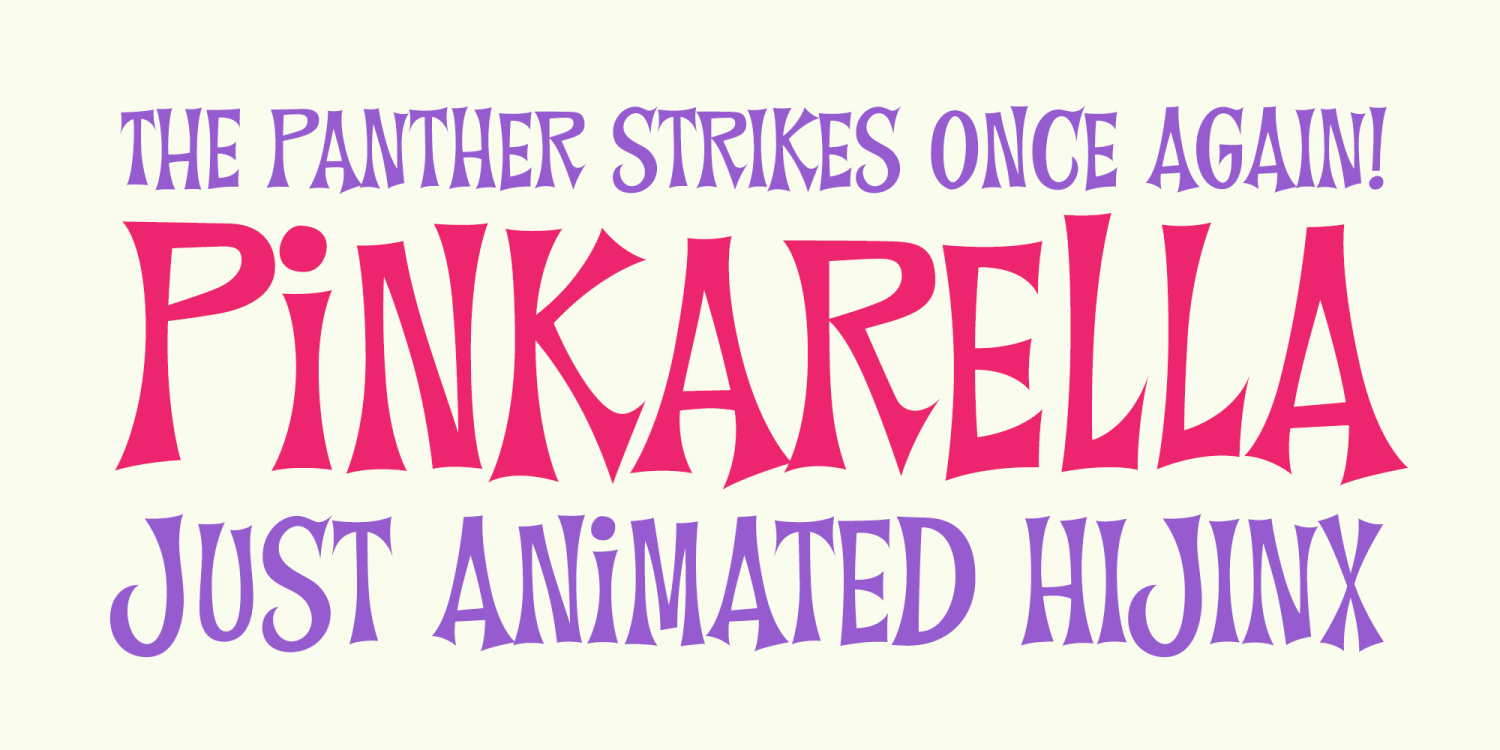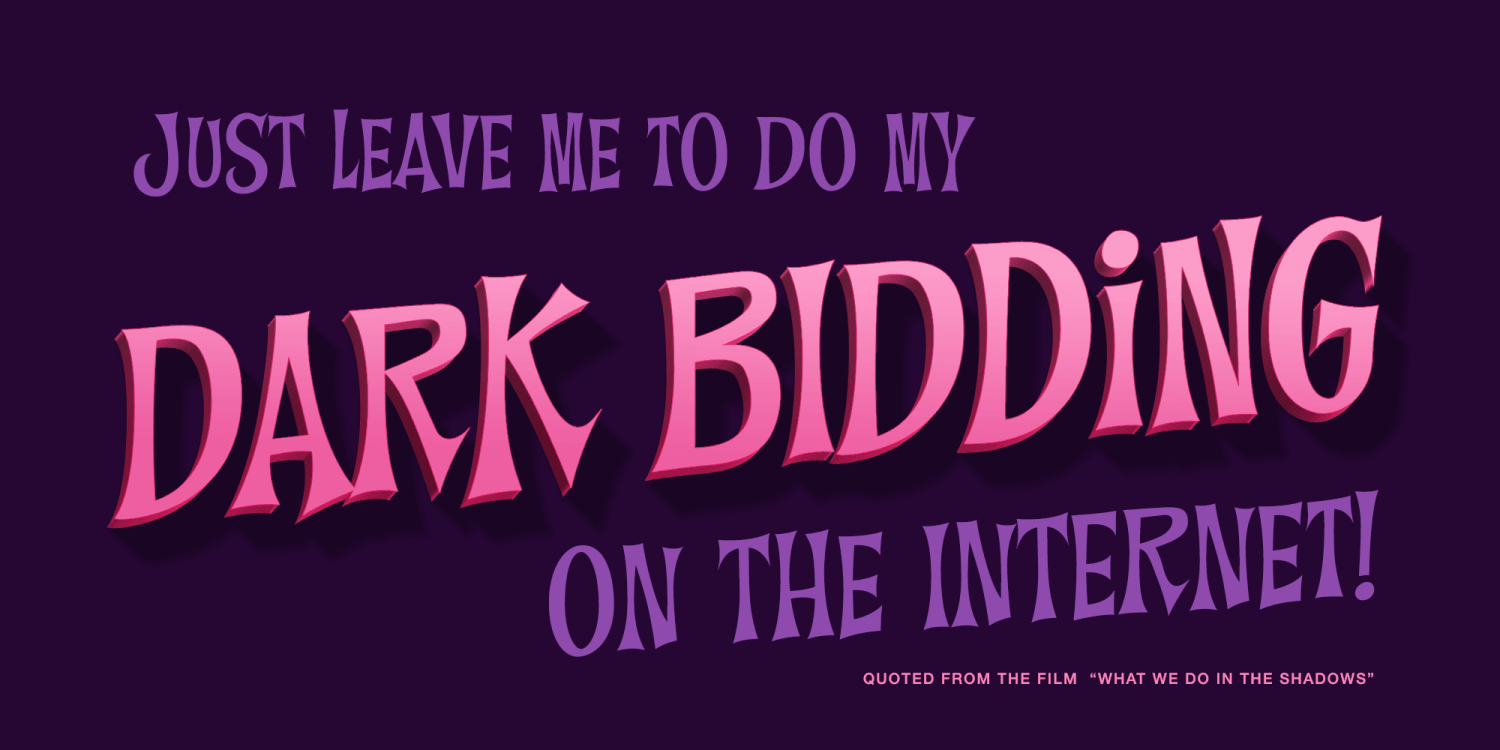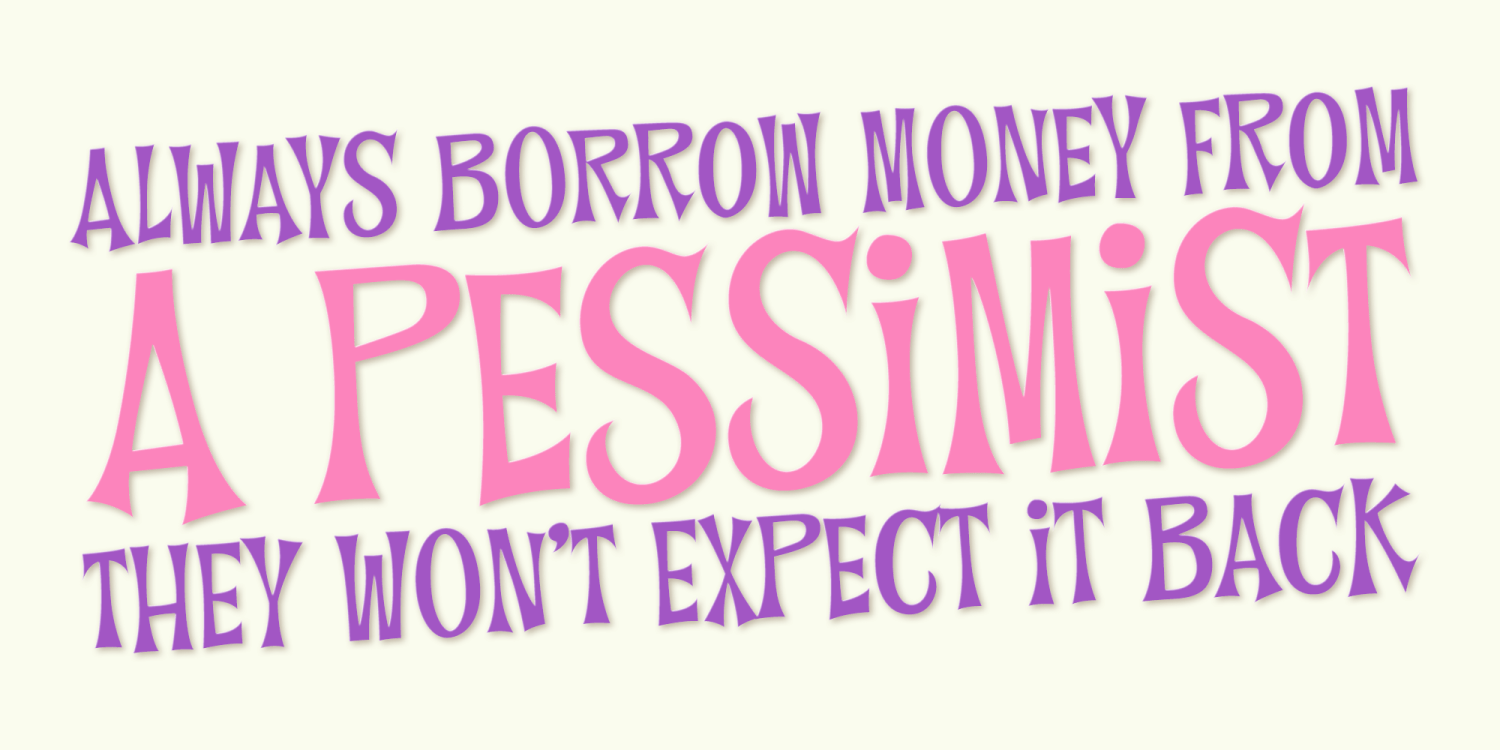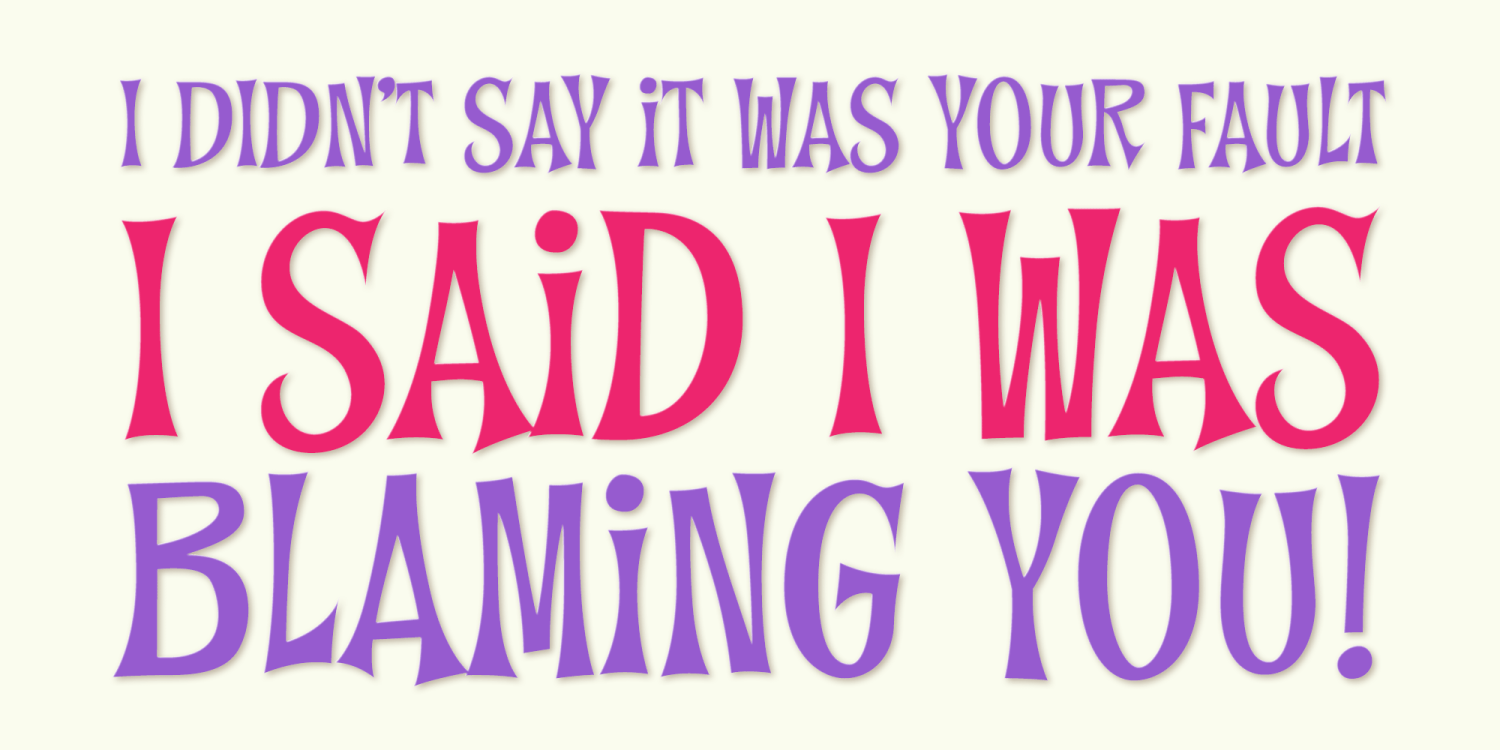
Pinkarella
Pinkarella PB is a recreation of the title lettering from the 56th Pink Panther cartoon episode "Pink-A-Rella". The lettering had flare serif lettering that was sort of all over the place with animated joy in its style. This recreation plays with setting between the capitals and alternate capitals in the lowercase character slots automatically to let you play carefree, just like the typestyle.